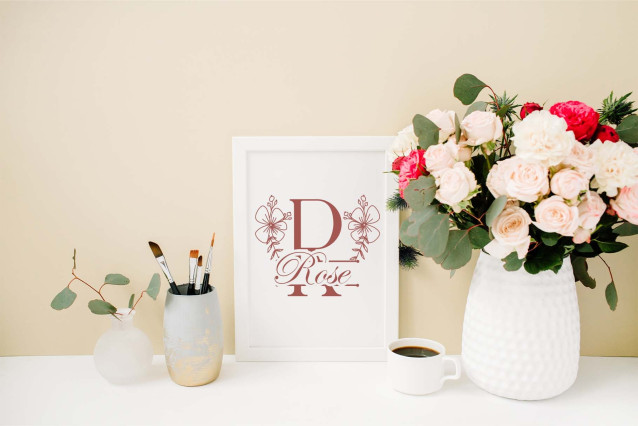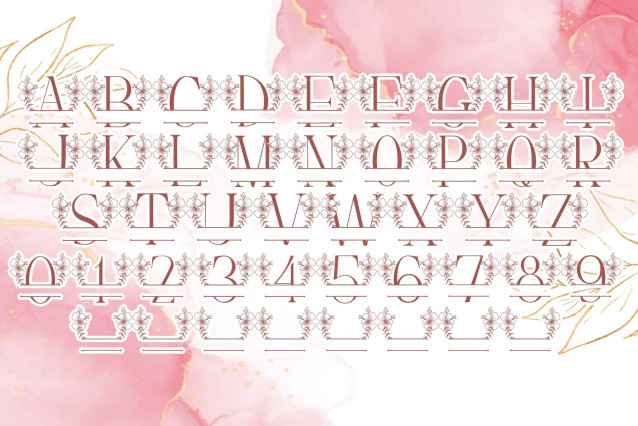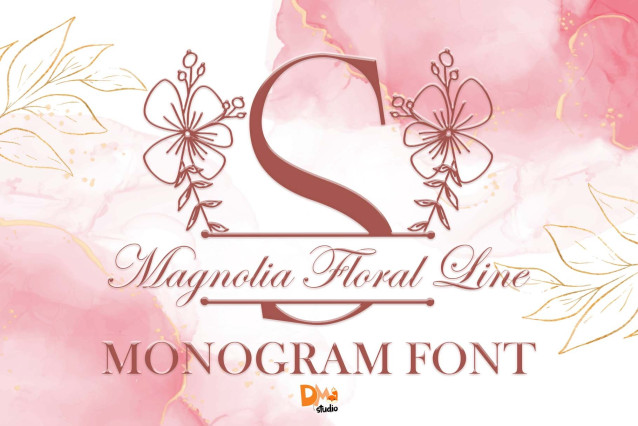
Magnolia Floral Line Monogram Font
Magnolia Floral Line Monogram is a refined and elegant monogram font inspired by the natural beauty of magnolia flowers. Each letter is delicately decorated with hand-drawn floral line art, offering a graceful and sophisticated style. Ideal for wedding stationery, personalized branding, boutique packaging, and elegant paper goods, this font brings a touch of nature and timeless charm to every design.